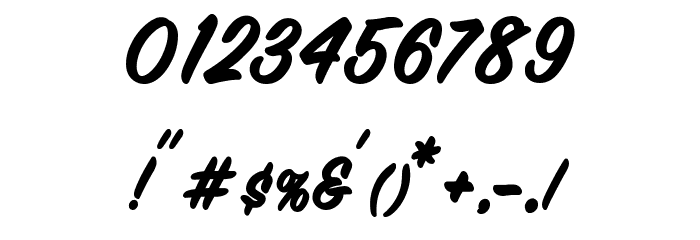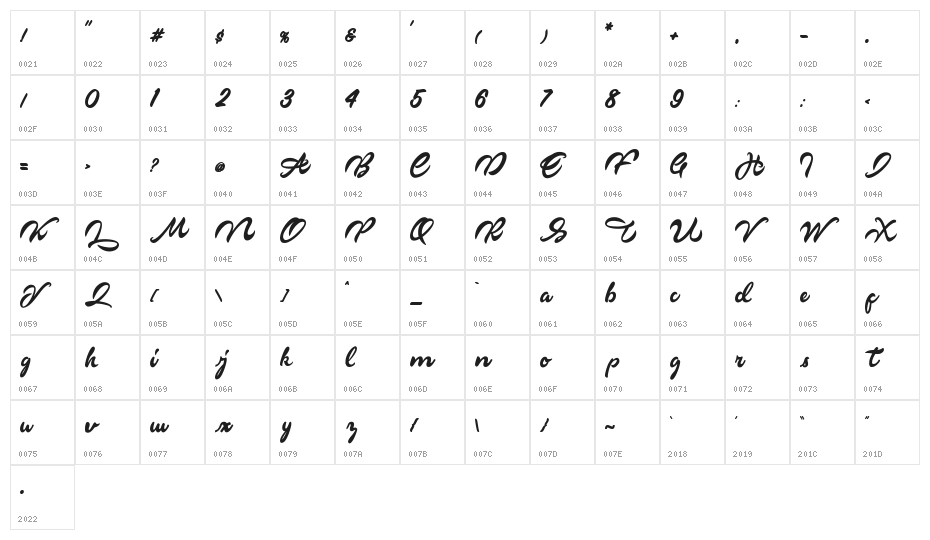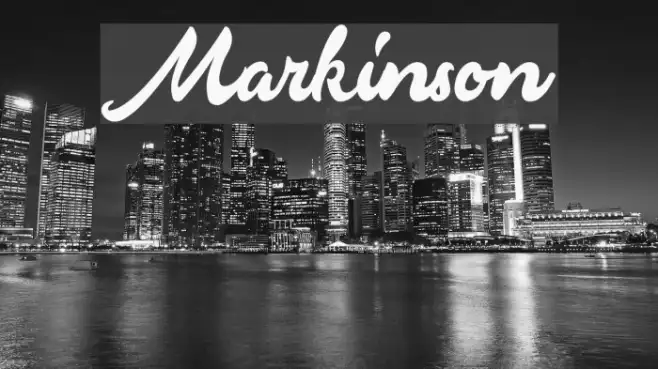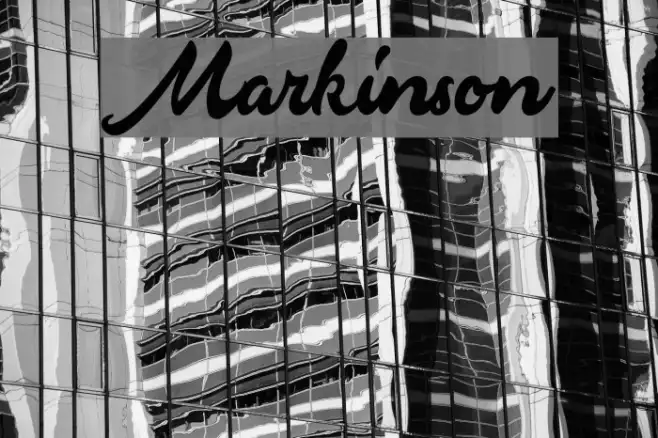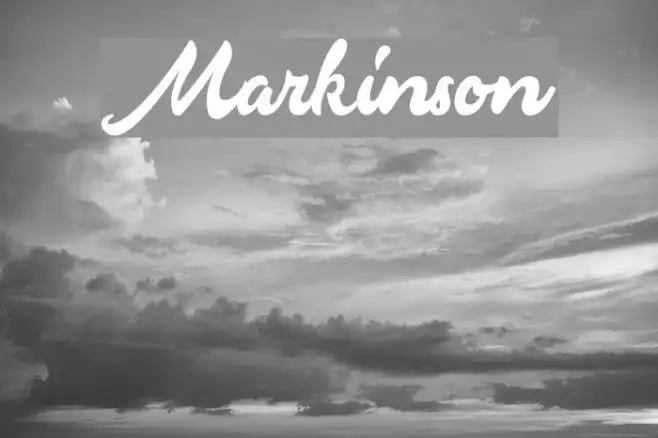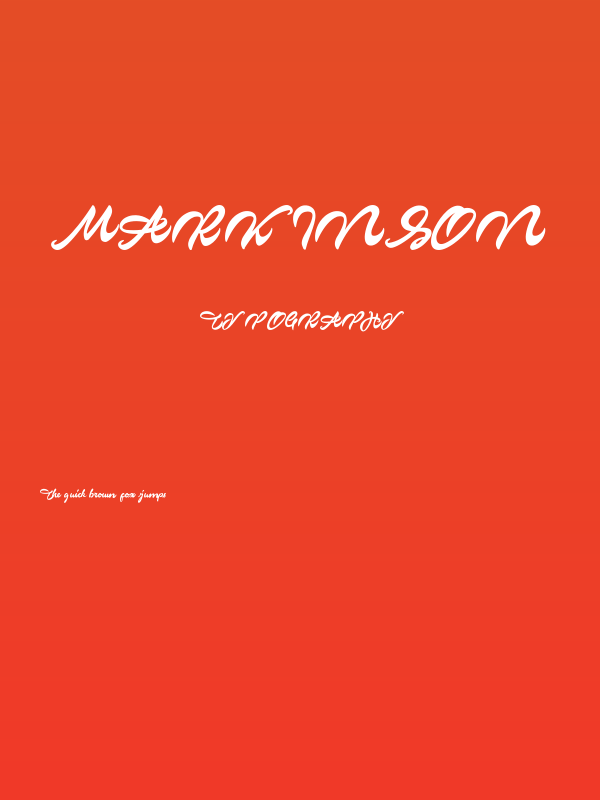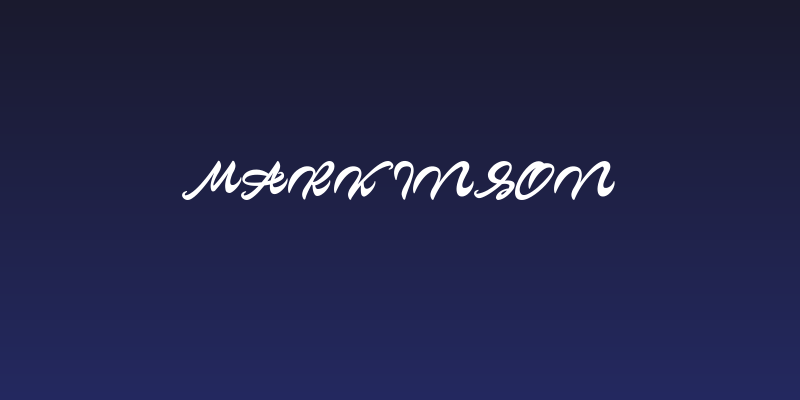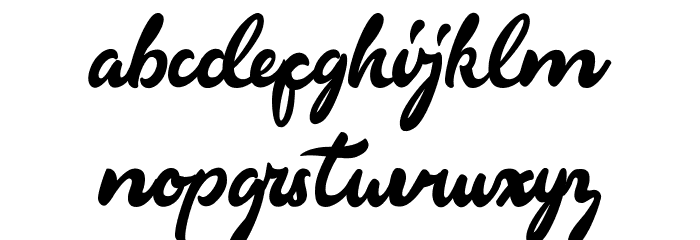
Markinson Font
Markinson Description
This font exudes a lively and dynamic energy with its bold, cursive script style. The characters are fluid and connected, giving it a handwritten appearance that is both elegant and expressive. The uppercase letters are particularly ornate, with sweeping curves and flourishes that add a touch of sophistication. The lowercase letters maintain a consistent flow, enhancing readability while preserving the artistic flair. The numerals and special characters are designed to match the overall style, ensuring a cohesive look across all text elements. This font is perfect for projects that require a personal, artistic touch.
| Proposed Projects | Ideal for wedding invitations, greeting cards, logos, and branding materials that require a personal and artistic touch. |